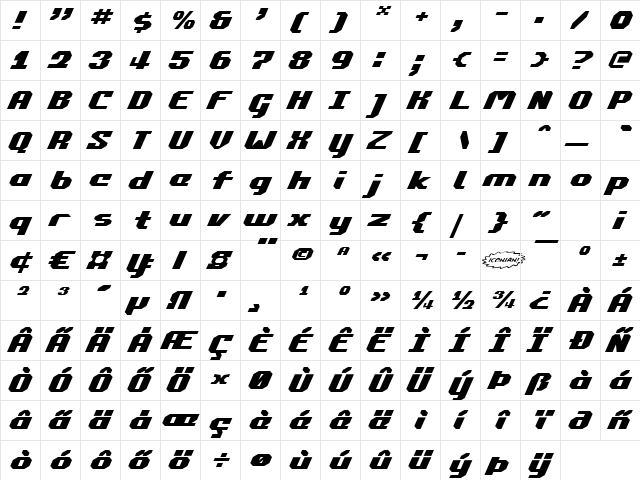
Commonwealth Expanded Italic Expanded Italic
Design Context for Commonwealth Expanded Italic Typeface
Commonwealth Expanded Italic offers clean, dependable letterforms without strong stylistic allegiance, making it a practical choice for designers who need flexibility. Its italic angle brings a sense of urgency and motion to the letterforms.
Pro Tip: Try Commonwealth Expanded Italic for annotation and caption copy alongside an upright companion — the contrast in angle creates a dynamic but ordered typographic system.